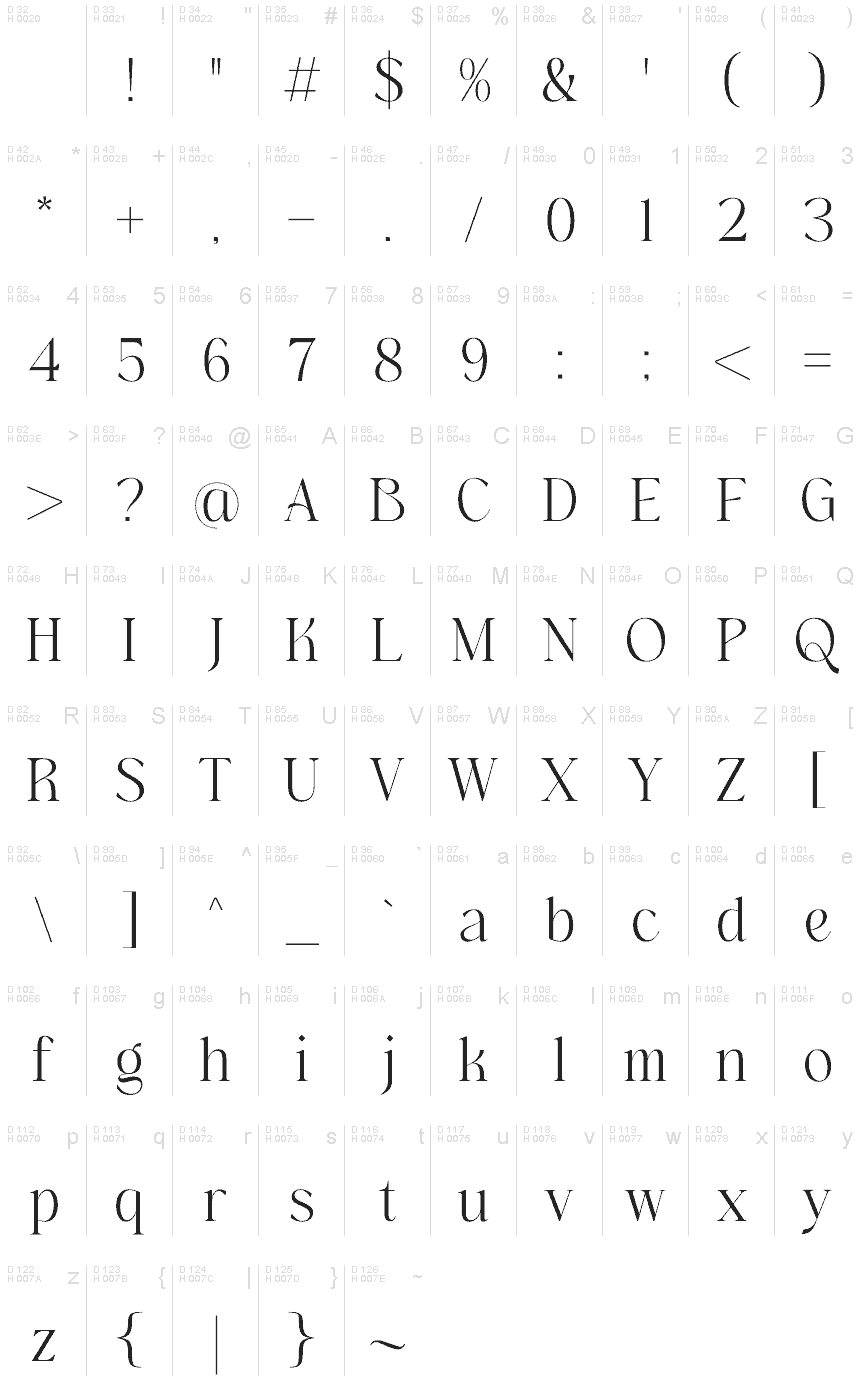
Hogbine
Hogbine font is a light, modern serif font designed by Storytype Studio. Its elegant and sophisticated look stems from expertly balanced curves, giving a slightly whimsical appearance to the whole set but without overshadowing its classic aesthetic. While the free download comes only with basic characters, they still provide enough design elements to imitate famous logos or posters.
The font is free for logos designing luxury cosmetics or health care brands; Hogbine might also serve residential development companies interested in presenting themselves as prestigious places to invest in. It’s suitable for magazine headlines, book covers, greeting cards, marketing content, and invitations (weddings).